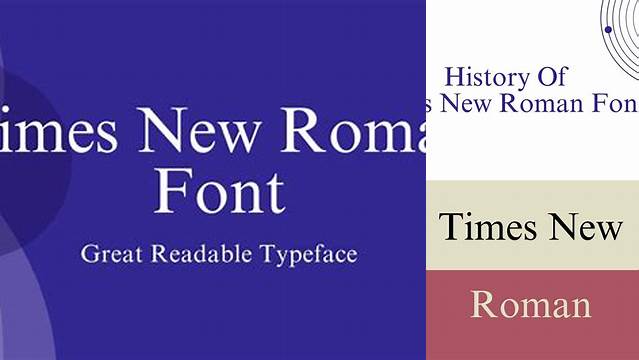
Let's dive into the world of fonts, specifically focusing on the classic Times New Roman! If you're looking to download Times New Roman font ZIP, you've come to the right place. We'll cover everything from where to find it, how to install it, and even some interesting facts about this widely used typeface.
1. What is Times New Roman Font?
Times New Roman is a serif typeface commissioned by The Times newspaper in 1931 and designed by Stanley Morison and Victor Lardent. It's known for its clarity and readability, making it a staple in books, newspapers, and academic papers. Its balanced design and traditional appeal have made it one of the most popular fonts in history. Understanding its origins and purpose will help you appreciate its value in various applications.
10. Alternatives to Times New Roman Font
While Times New Roman is a classic, there are alternatives if you want a similar but slightly different look. Fonts like Garamond, Georgia, and Book Antiqua offer comparable readability and aesthetic appeal. These alternatives can provide a fresh twist while maintaining a professional appearance. Don't be afraid to experiment and find what works best for your project!
11. Times New Roman Font Variations
Did you know there are variations of Times New Roman? From bold to italic, these styles offer versatility for different design needs. When you download Times New Roman font ZIP, ensure it includes these variations. Using different styles can add emphasis and visual interest to your documents. It's like having different tools in your design arsenal.
12. Using Times New Roman for Professional Documents
Times New Roman is a go-to choice for professional documents due to its clarity and formality. Whether it's a resume, report, or business letter, this font conveys a sense of professionalism. However, be mindful of overuse; consider pairing it with a sans-serif font for headings to create a modern contrast. Balance is key, my friends!
13. Times New Roman Font and Readability
One of the main reasons Times New Roman remains popular is its excellent readability. The serifs guide the eye across the text, making it easier to read long passages. This is why it's often used in books and newspapers. When you download Times New Roman font ZIP, you're investing in a font that prioritizes clarity and reader comfort.
14. Times New Roman in Graphic Design
While primarily used for body text, Times New Roman can also be incorporated into graphic design projects. Use it sparingly for headlines or branding elements to evoke a sense of tradition and sophistication. Just remember to balance it with more modern design elements to avoid an outdated look. It’s all about finding the right harmony!
15. Times New Roman Font for Websites
Using Times New Roman on websites can be tricky. While it's readable, it might not always render well on all browsers and devices. Consider using it for specific sections or pairing it with a web-safe font for the main body text. Always test your website's appearance on different devices to ensure optimal readability. Web design is all about adaptability!
17. Times New Roman Font License
Understanding the license for Times New Roman is essential. As mentioned earlier, it's generally free for personal and commercial use as part of your OS. However, distributing the font file requires checking the specific terms and conditions. Always respect the font's licensing to avoid legal issues. Play it safe, guys!
18. Common Mistakes When Using Times New Roman
One common mistake is overusing Times New Roman. While it's a great font, using it for everything can make your design look monotonous. Another mistake is using it in inappropriate contexts, like overly modern or trendy designs. Use Times New Roman thoughtfully and strategically. Know your audience and your purpose!
19. The History of Times New Roman Font
Delving into the history of Times New Roman adds to its appeal. Created for The Times newspaper, it was designed to be compact and highly readable. Its creation marked a significant moment in typography, influencing font design for decades to come. Understanding its history gives you a deeper appreciation for its design and purpose.
20. Times New Roman vs. Other Serif Fonts
Comparing Times New Roman to other serif fonts like Garamond, Georgia, and Palatino helps you understand its unique characteristics. Each font has its own personality and strengths. Times New Roman is known for its neutrality and readability, making it a reliable choice for various applications. Knowing the differences helps you choose the right font for your project.
21. Where to Buy Times New Roman Font
While Times New Roman typically comes with your operating system, you might find specialized versions or extended font families available for purchase. Reputable font foundries offer these options. However, for most users, the standard version included with your OS is sufficient. Don't break the bank unless you need those extra features!
22. Times New Roman Font Pairing
Pairing Times New Roman with other fonts can create a visually appealing and balanced design. Common pairings include sans-serif fonts like Arial or Helvetica for headings. Experiment with different combinations to find what works best for your project. Font pairing is an art, so have fun with it!
23. Times New Roman Font Generator
Online font generators allow you to preview text in Times New Roman without having it installed on your system. This can be useful for quickly testing how the font looks in different contexts. However, remember that these generators are for preview purposes only; you'll still need to download Times New Roman font ZIP and install it to use it in your applications.
24. Times New Roman Font Weight
Times New Roman comes in various weights, from regular to bold. Using different weights can add emphasis and visual hierarchy to your text. Ensure that the download Times New Roman font ZIP includes these different weights. Weight adds depth and dimension to your typography.
25. Times New Roman Font Kerning
Kerning refers to the spacing between individual letters. Proper kerning is essential for readability and visual appeal. Most applications handle kerning automatically, but you can also adjust it manually for fine-tuning. Pay attention to kerning to ensure your text looks polished and professional. Details matter!
26. Times New Roman Font for Resumes
Times New Roman is a classic choice for resumes due to its professionalism and readability. However, some argue that it can look dated. If you choose to use it, ensure your resume design is modern and clean. Consider pairing it with a contemporary sans-serif font for headings. Make a good first impression!
27. Times New Roman Font and Microsoft Word
Times New Roman is a default font in Microsoft Word, making it easily accessible for creating documents. Its compatibility with Word ensures consistent rendering across different versions and platforms. Leverage its seamless integration to create professional-looking documents with ease. It's a match made in software heaven!
28. Times New Roman Font on Different Operating Systems
Times New Roman is available on both Windows and macOS, ensuring consistency across different platforms. This cross-platform compatibility makes it a reliable choice for projects that need to be shared or viewed on different systems. You can trust that your documents will look the same, regardless of the operating system.
29. Is Times New Roman Font Overused?
While Times New Roman is a classic, some argue that it's overused and can make designs look dated. However, when used thoughtfully and strategically, it can still be effective. Consider your audience and the context of your project. Don't be afraid to experiment with other fonts, but don't dismiss Times New Roman entirely. It's all about balance and intention.
30. Future of Times New Roman Font
Despite its age, Times New Roman remains a relevant and widely used font. Its timeless design and readability ensure its continued popularity. While new fonts emerge, Times New Roman will likely remain a staple in typography for years to come. Classics never truly go out of style!